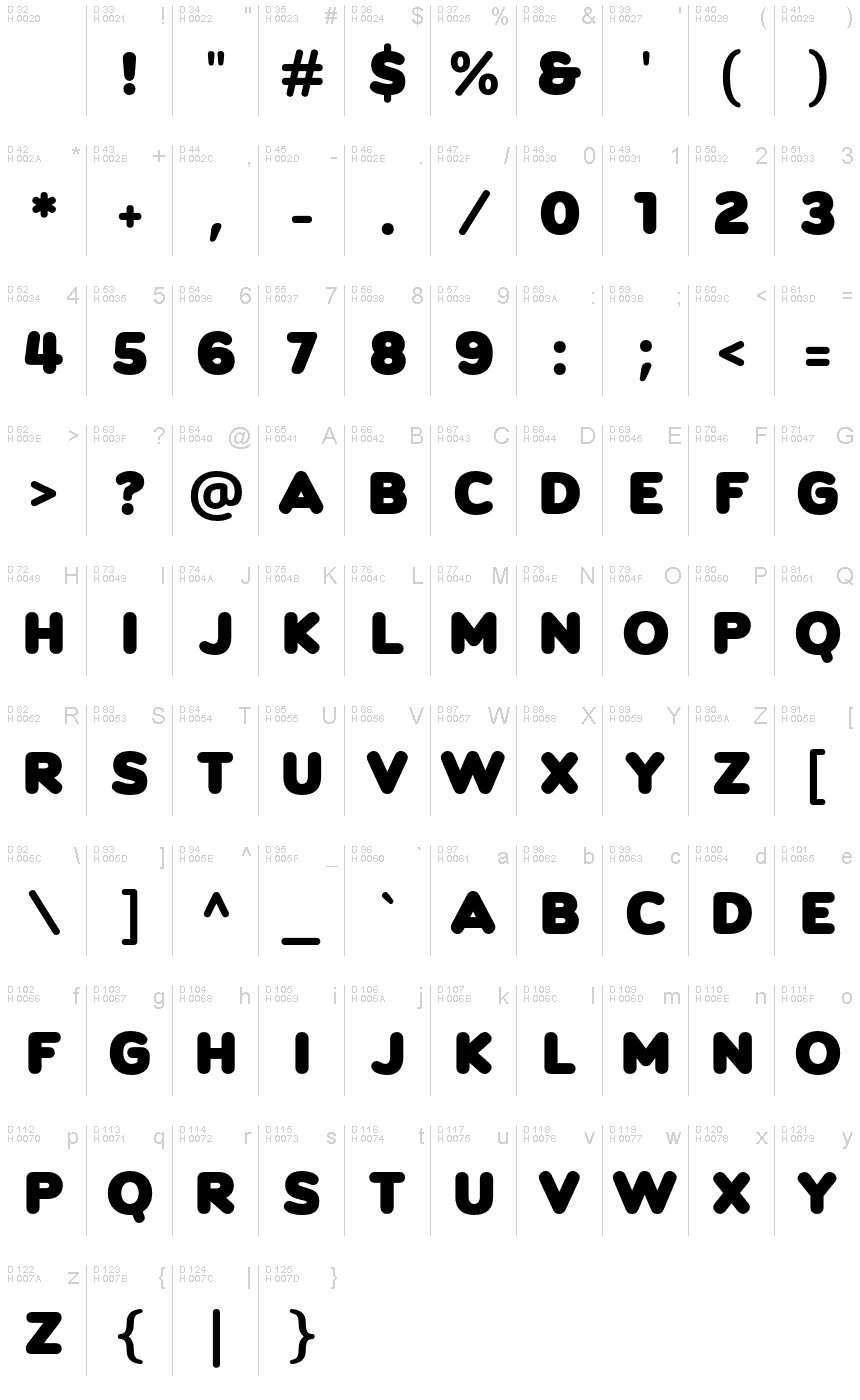
Donkin-Regular
Donkin, a creation by Faqih Fawaji, is an extraordinary round sans serif font.
Its extra-bold weight and semi-expanded width make it a perfect choice for eye-catching headlines and attention-grabbing logos. With its unique curves and smooth edges, Donkin adds a touch of modern sophistication to any project. Whether you're designing book covers, creating posters with impact, or crafting impactful social media graphics, this font will elevate your creative endeavors to new heights.
Embrace the versatility of Donkin and let its charm bring your designs to life!